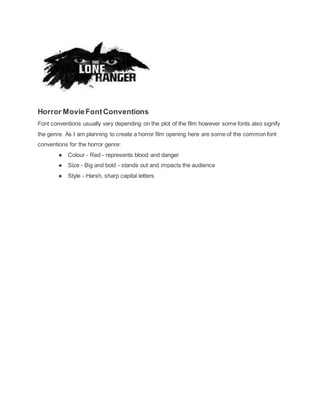
Font Research
What are fonts?
Text that is of one particular face and size
Importance of fonts in film
The font used in a film can be key signifiers of the genre for example a red film may represent
the horror genre as it could symbolise blood or it could symbolise the romance genre as it is the
colour of love. Different aspects of the font can present the genre to the audience including font
size, colour and the style. The font can also represent the importance of the text shown for
example if a text is in capitals and is big and bold it is likely to be key information.
Fonts used in film titles
Romance:
Action:
Horror:
Comedy:
Family:
Western:
Horror MovieFontConventions
Font conventions usually vary depending on the plot of the film however some fonts also signify
the genre. As I am planning to create a horror film opening here are some of the common font
conventions for the horror genre:
● Colour - Red - represents blood and danger
● Size - Big and bold - stands out and impacts the audience
● Style - Harsh, sharp capital letters